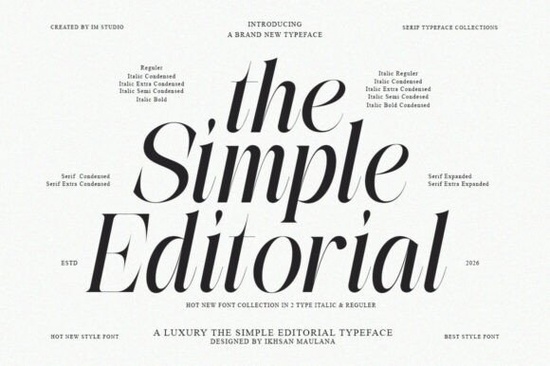
If you're looking for a serif font that feels both timeless and modern, The Simple Editorial Font is worth exploring. It’s not just another typeface it’s a tool built for real design work. Whether you’re crafting a brand identity, laying out a magazine spread, or designing packaging that stands out, this font brings character without overwhelming your layout.
What makes The Simple Editorial Font stand out?
It draws inspiration from vintage print media think mid-century ads, classic book covers, and old-school signage. But instead of feeling dated, it fits right in with today’s clean, intentional design trends. The balance between retro charm and modern clarity is what sets it apart.
With 15 styles across 9 weights and matching italics, you get a full range of options. Need something delicate for a wedding invitation? Try the light weight. Want bold headlines for a poster or logo? The display weight delivers strong impact. And the refined ligatures add subtle polish especially noticeable in longer text blocks.
Why designers choose this font for editorial and branding work
Designers love it because it works across different projects without needing extra adjustments. You can use the same family for body text, headings, and logos, creating consistency throughout your design system. It’s ideal for:
- High-end magazine layouts
- Luxury product packaging
- Brand identities with heritage or storytelling roots
- Print-on-demand items like journals, mugs, and stationery
Its versatility means you don’t need to switch fonts often. One family handles multiple roles, saving time and keeping your designs cohesive.
How does it compare to other serif fonts?
Fonts like Montega bring a similar elegance but lean more toward decorative flair. Gibs offers a softer, handcrafted feel. Meanwhile, Sweetberry leans into playful curves and organic shapes.
The Simple Editorial sits somewhere in the middle not too ornate, not too plain. It’s purposeful. Each letterform has been carefully shaped to support readability while still making a statement. That balance is rare, and it shows in how naturally it fits into professional layouts.
Real-world uses beyond branding
Because it includes so many weights and italics, you can create visual hierarchy easily. For example: use the regular weight for paragraph text, medium for subheadings, and bold for main titles all from one family. No juggling between multiple fonts needed.
Final thoughts: Is it right for your next project?
If you want a serif font that feels authentic, reliable, and flexible, give The Simple Editorial Font a try. It’s not flashy, but it’s thoughtful. Not trendy, but timeless. And most importantly, it’s designed to help you focus on creativity not font struggles.